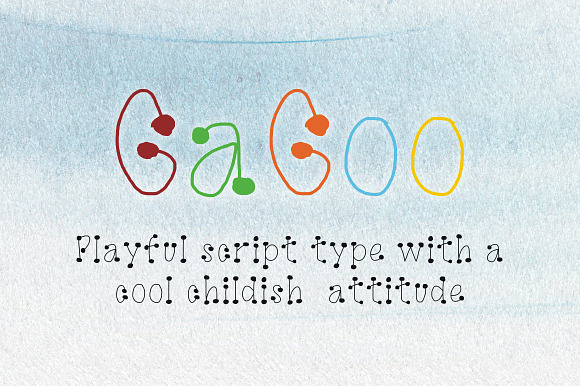
GaGoo, a playful script font
GaGoo font is an experimental script type made out of lines and bubbles with a naive and childish look. This playful font can be used to create really cute designs. Enjoy!
GaGoo, a playful script font by Kreativ Font fits naturally into Branding, posters, packaging, typography.